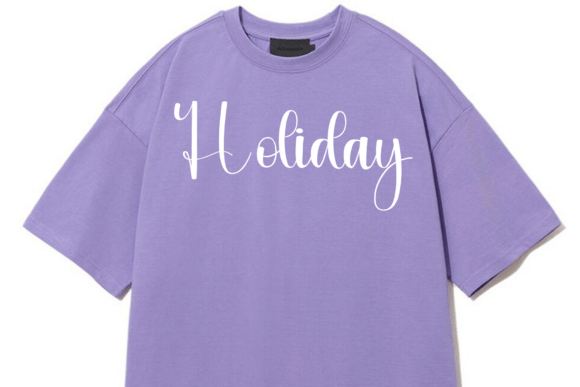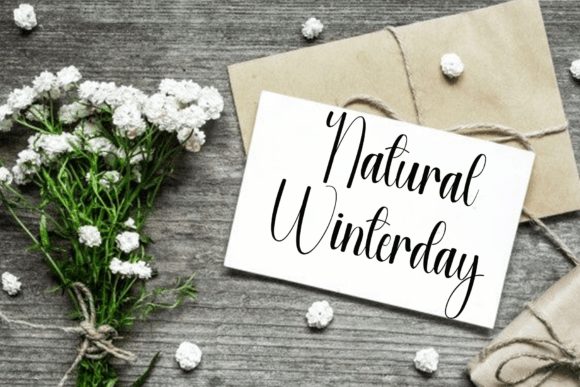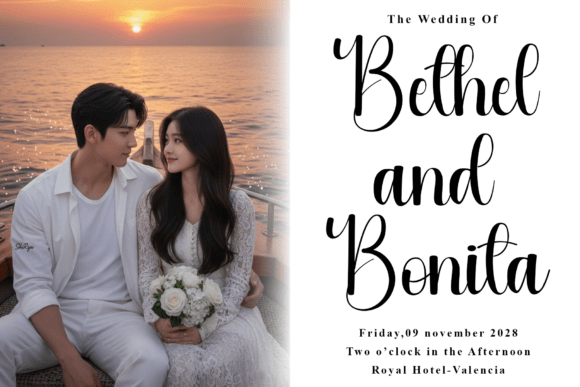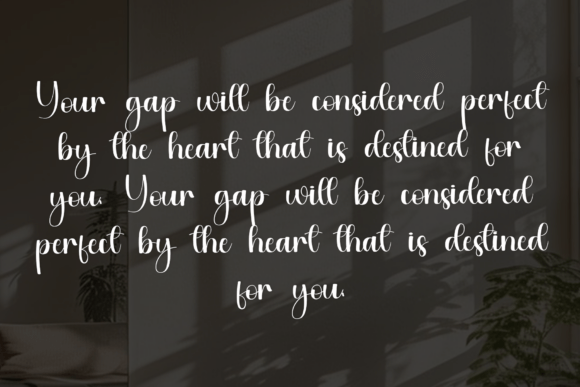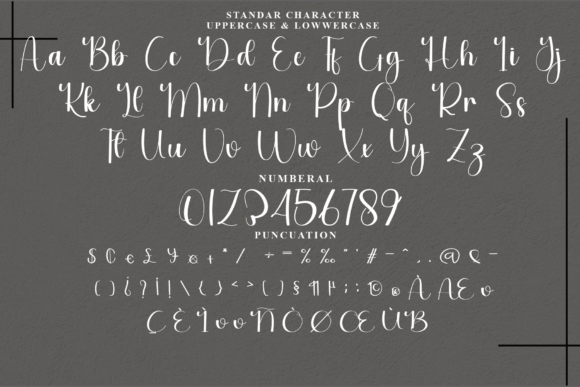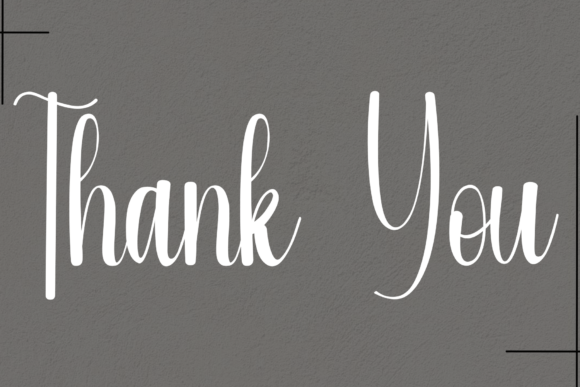
Brittany Font: Elevate Your Design with a Sophisticated Autumnal Script
In the world of typography, few fonts capture the essence of autumn as elegantly as Brittany Font. This modern script font is a masterful blend of sophistication and rhythm, making it an ideal choice for designers and crafters looking to infuse their projects with a unique and professional visual voice. As part of a curated collection of handwritten fonts, Brittany stands out with its high-contrast strokes, vertically elongated letterforms, and graceful, looping ascenders that evoke the feeling of high-end inkwork.
The Characteristics of Brittany Font
Brittany Font is distinguished by its thick, grounded downstrokes and delicate hairline connectors, which combine to create a sense of fluidity and movement. The high-contrast strokes give the font a dynamic, expressive quality that is perfect for a range of applications, from seasonal autumn marketing to artisanal food packaging, boutique event invitations, and sophisticated editorial headers.
One of the defining features of Brittany Font is its vertically elongated letterforms, which lend a sense of elegance and refinement to any design. The font’s graceful, looping ascenders add a touch of whimsy and sophistication, making it an excellent choice for designers looking to create eye-catching and memorable typography.
Applications for Brittany Font
Brittany Font is a versatile typeface that can be used in a variety of contexts, from digital marketing campaigns to print materials. Here are some of the ideal applications for this beautiful font:
- Seasonal Autumn Marketing: Brittany Font is perfectly suited for autumn-themed marketing campaigns, including social media graphics, email headers, and website promotions. Its warm, inviting feel helps to create a cozy and welcoming atmosphere that resonates with customers.
- Artisanal Food Packaging: The font’s elegant, sophisticated quality makes it an excellent choice for artisanal food packaging, including labels, tags, and branding materials. Brittany Font helps to convey a sense of high-end quality and attention to detail.
- Boutique Event Invitations: Whether you’re planning a wedding, gala, or other special event, Brittany Font is an excellent choice for your invitations. Its refined, luxurious feel helps to set the tone for a sophisticated and memorable experience.
- Sophisticated Editorial Headers: Brittany Font is also well-suited for editorial use, including magazine headers, article titles, and blog posts. Its elegant, refined quality helps to elevate the tone of your content and create a lasting impression on readers.
Why Choose Brittany Font?
With so many fonts to choose from, why should you opt for Brittany Font? Here are just a few reasons why this beautiful script font stands out:
- Unique and Professional: Brittany Font offers a unique and professional visual voice that helps to set your designs apart from the competition.
- High-Quality Typography: The font’s high-contrast strokes, elegant letterforms, and delicate connectors create a sense of luxury and sophistication.
- Versatile: Brittany Font can be used in a range of contexts, from digital marketing to print materials.
- Elegant and Refined: The font’s refined, elegant quality makes it an excellent choice for designers looking to create sophisticated and memorable typography.
Brittany Font is a sophisticated and rhythmic script font that embodies the essence of autumn. With its high-contrast strokes, elegant letterforms, and delicate connectors, this beautiful font is perfect for designers and crafters looking to create unique and professional typography. Whether you’re working on seasonal autumn marketing campaigns, artisanal food packaging, boutique event invitations, or sophisticated editorial headers, Brittany Font is an excellent choice. Its versatility, elegance, and refined quality make it a valuable asset for any designer looking to elevate their designs and create a lasting impression.